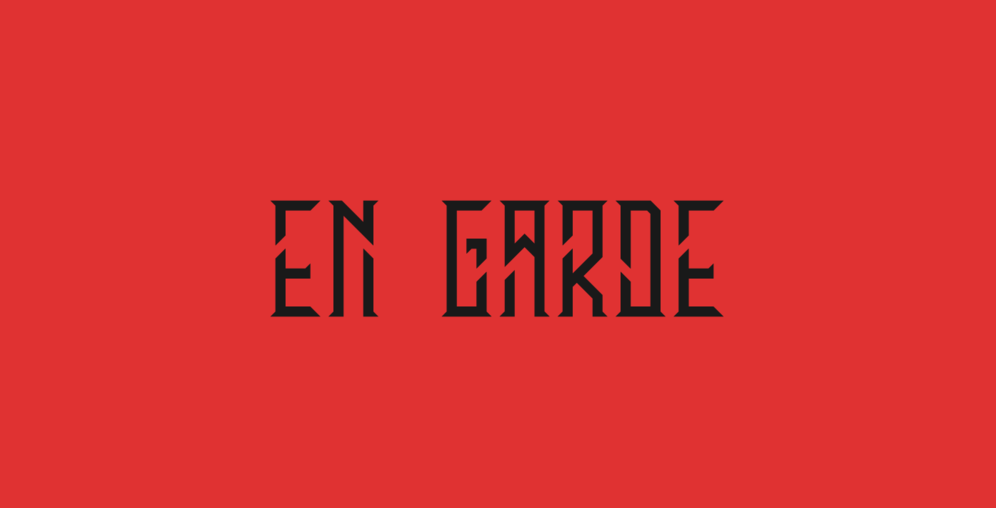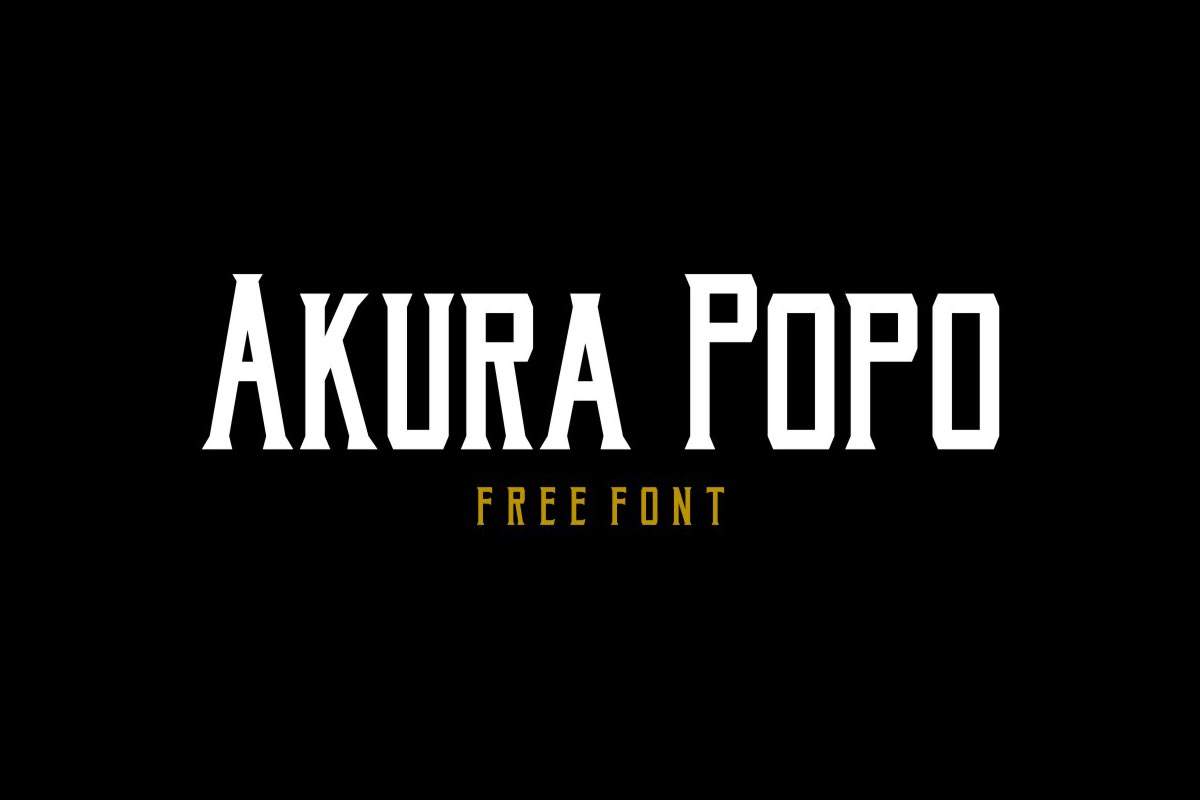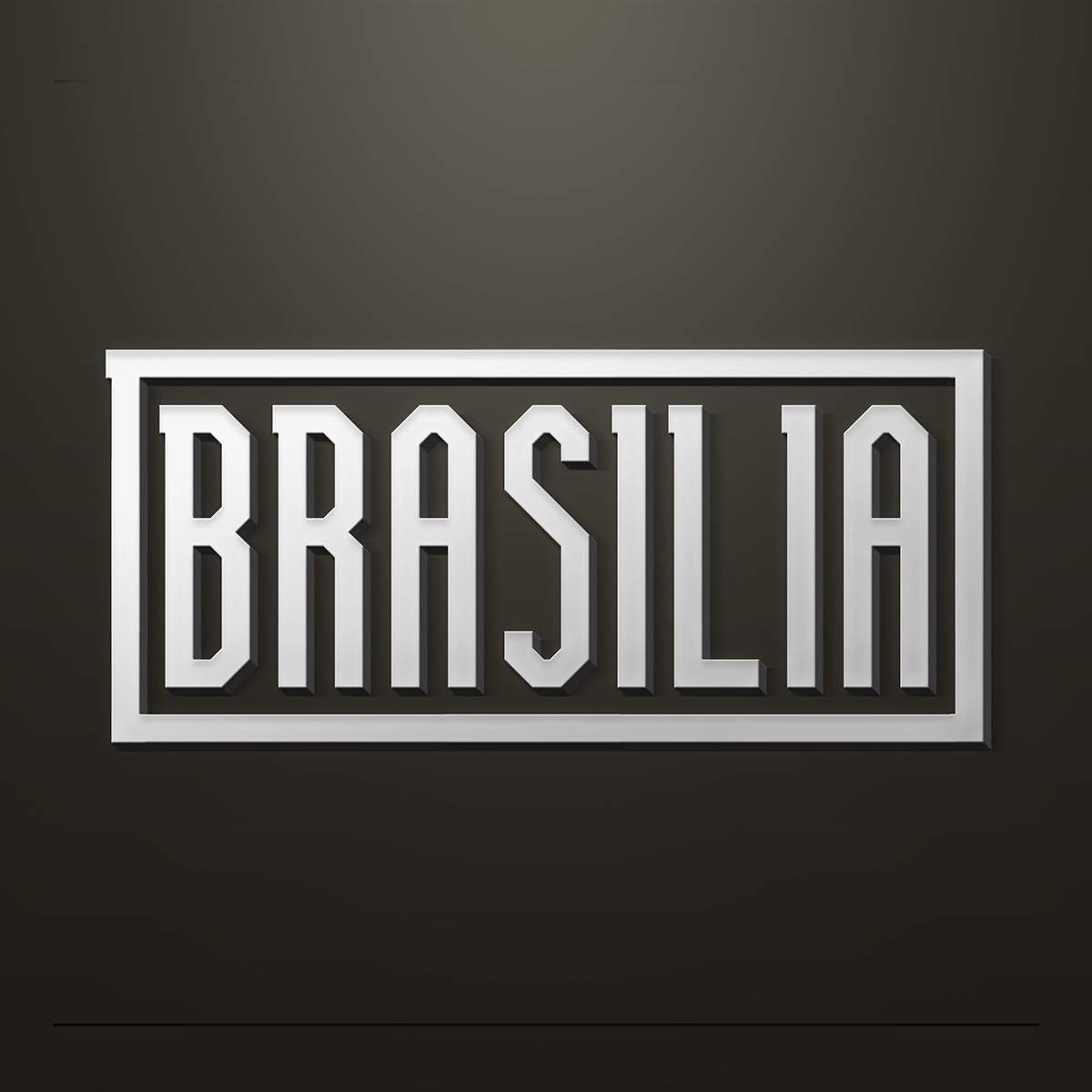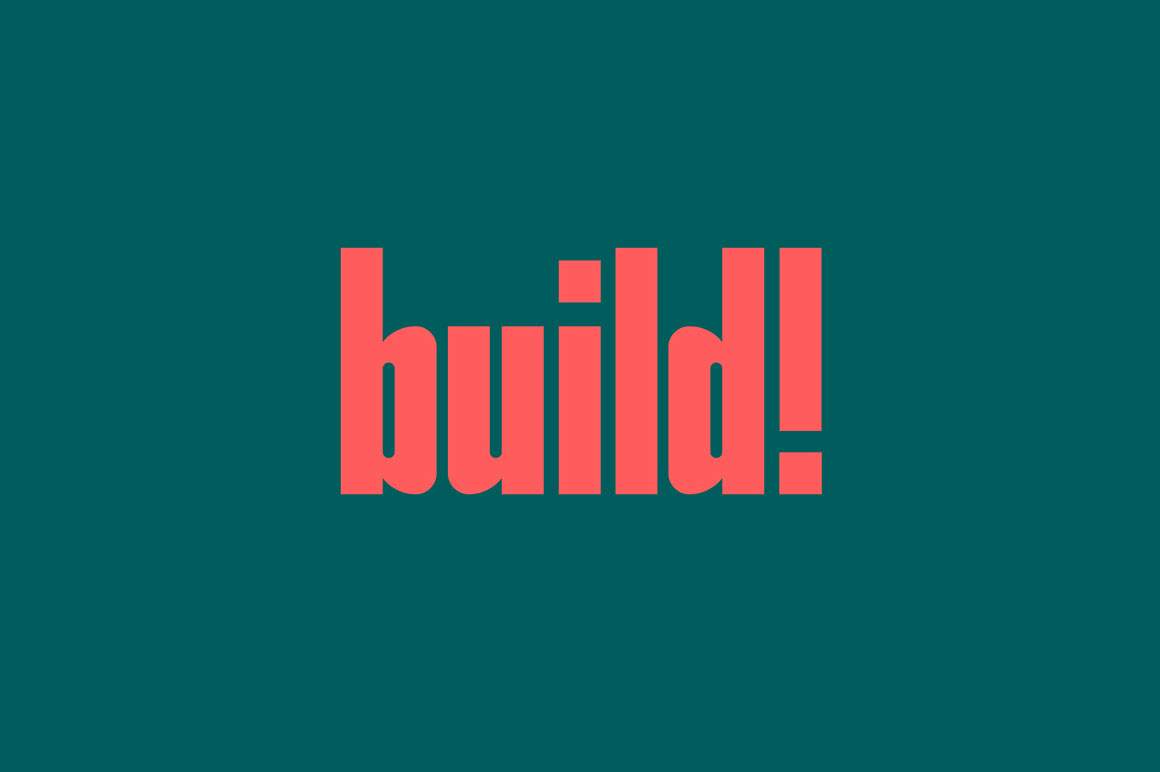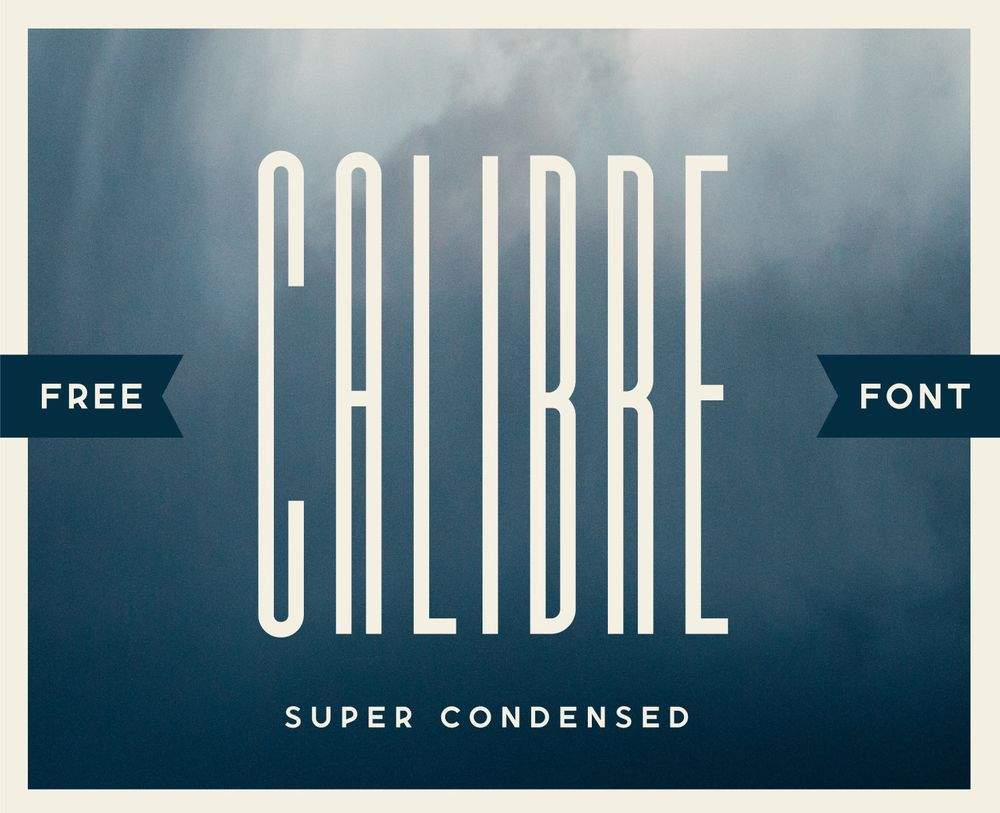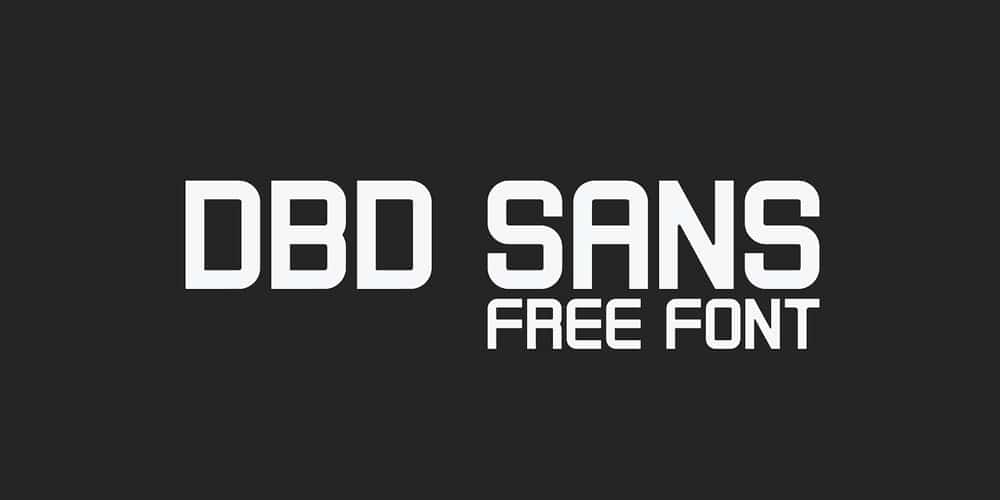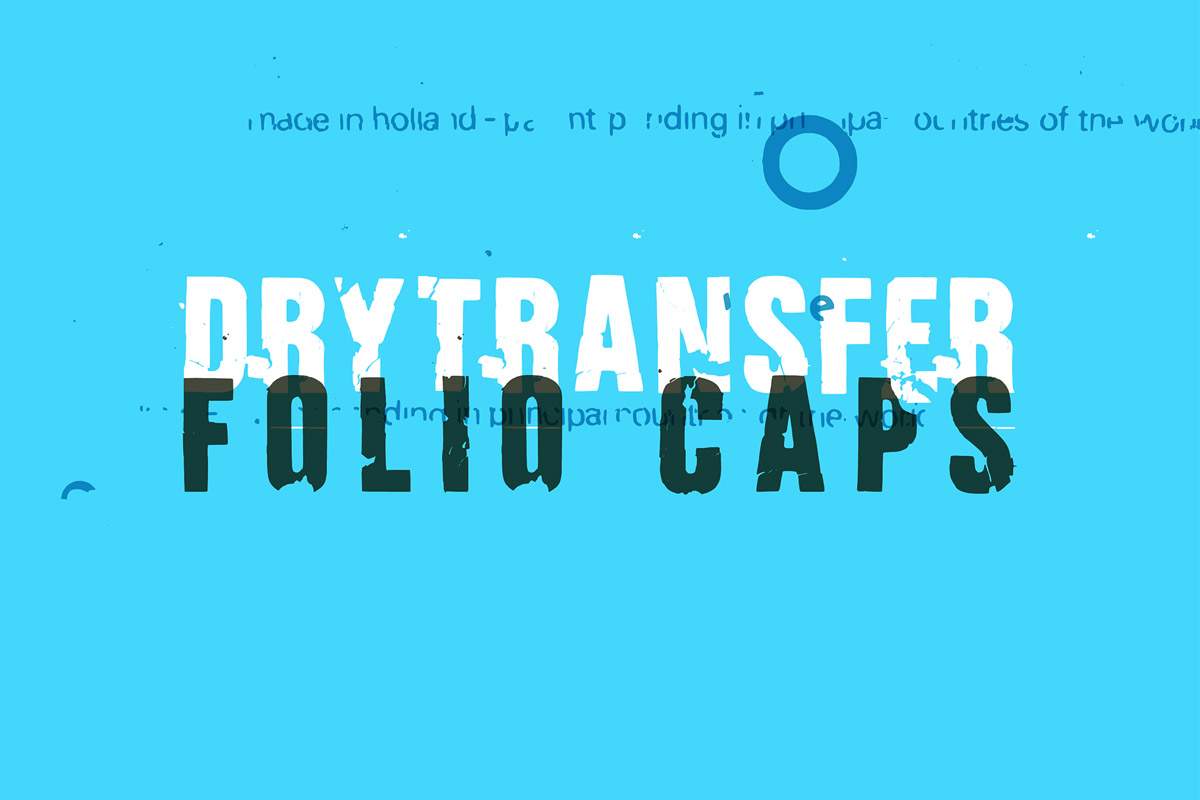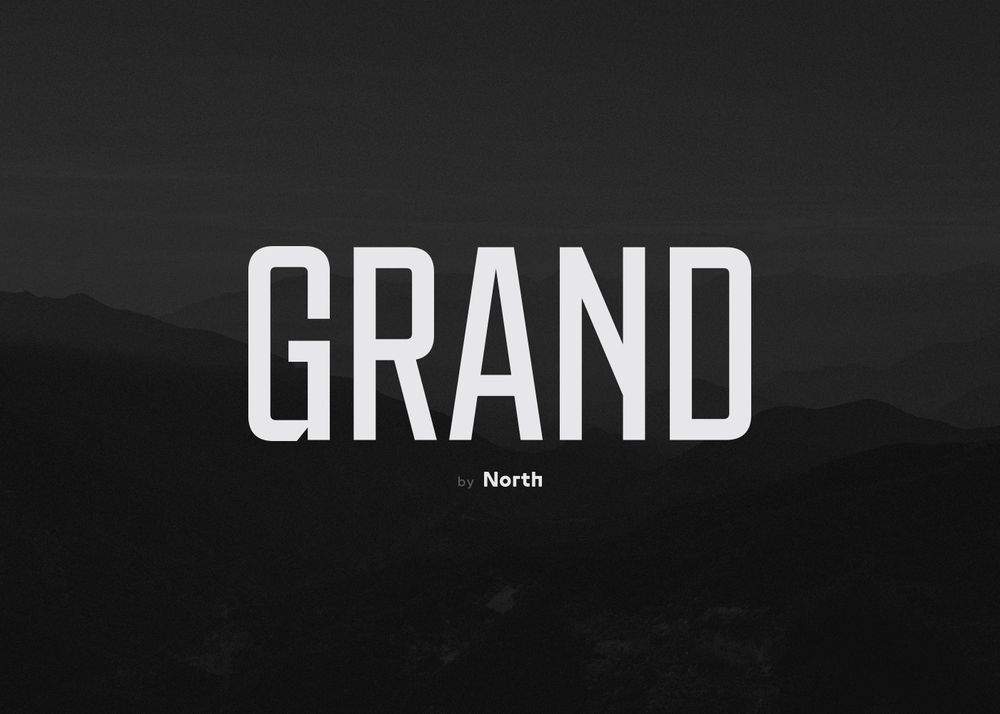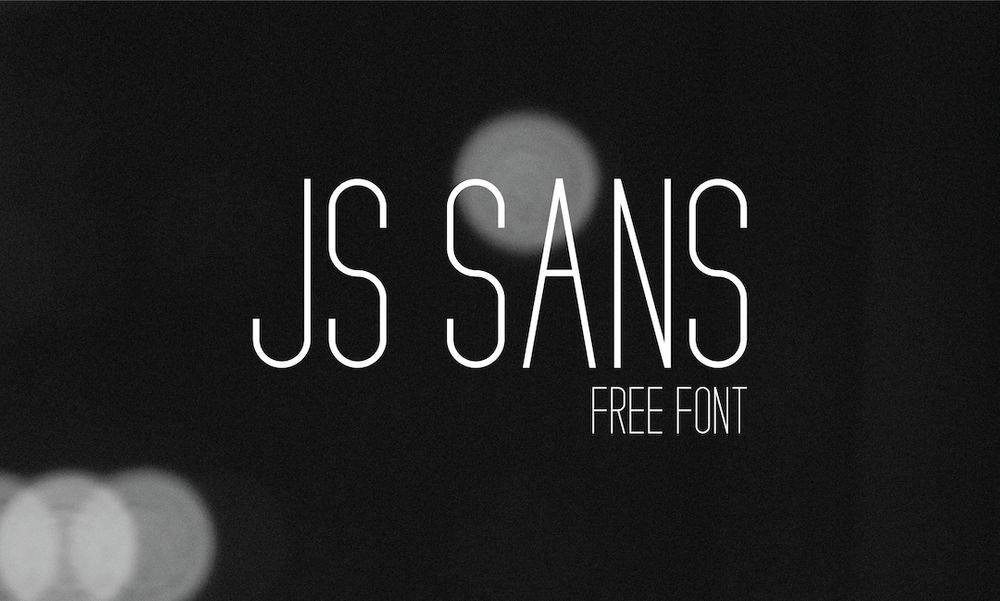
Free condensed fonts are an essential tool for any designer. Their narrow, clean form allows you to create bold branding, modern logos, impactful headlines, and stylish layouts without sacrificing readability. Whether you’re designing a website, print materials, social media graphics, or packaging, these condensed fonts provide a professional and contemporary look that elevates any project.
Why Designers Prefer Condensed Fonts
Condensed fonts are popular among designers for several reasons. Their space-saving design makes them perfect for headlines, titles, and logos where space is limited but impact is crucial. These typefaces also enhance typography-focused designs, ensuring text is both readable and visually striking.
Some key uses of condensed fonts include:
Bold branding and logo design
Attention-grabbing headlines
Stylish editorial layouts
Professional packaging and promotional materials
By integrating free condensed fonts into your projects, you can create modern and sophisticated designs with minimal effort. These fonts are versatile and can be applied across web design, print media, mobile apps, and marketing campaigns.
Top Free Condensed Fonts for Your Design Projects
Using these condensed fonts, you can create professional designs, make headlines pop, and add a modern, bold touch to any creative project. From blog headers to branding materials and editorial layouts, these fonts are an indispensable resource for every designer.
1. Brasilia
2. Havana
3. Ducados
4. Voga Typeface (Medium)
5. Grand
6. Soviet League
7. Slender
8. Insta Story
9. Trouble
10. Berancia
11. Reckoner
12. Ostrich Sans
13. Pogo
14. Morganite
15. Calama
16. Moalang Display
17. En Garde
18. Bewlay
19. Chappa Sans Serif
20. Claron Condensed
21. DryTransfer Folio Caps
22. Rousseau Deco
23. Searocks Sans Serif
24. Platina
25. DBD Sans
26. JS Sans
27. Follana
28. Build
29. Ciderhouse
30. Calibre
31. Lazar 1389
32. Foxy
33. Giraffey
34. Westmeath
35. Highwind
36. Akuro Popo
37. Masquerouge font
38. Bripokus Stencil